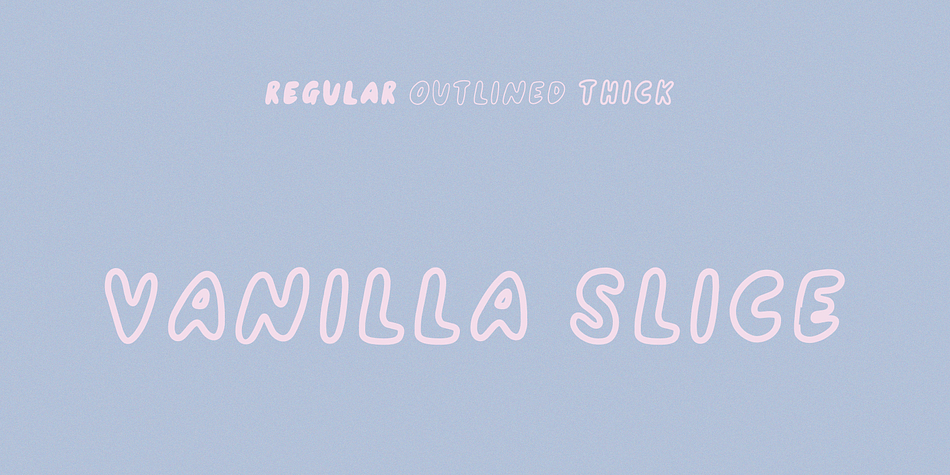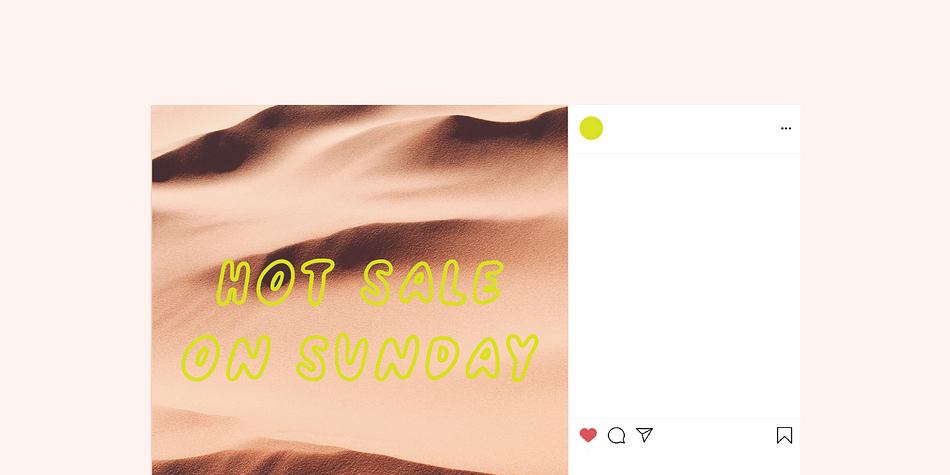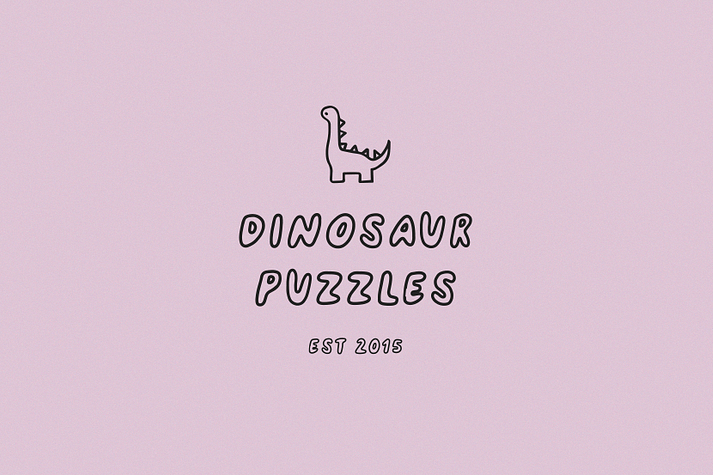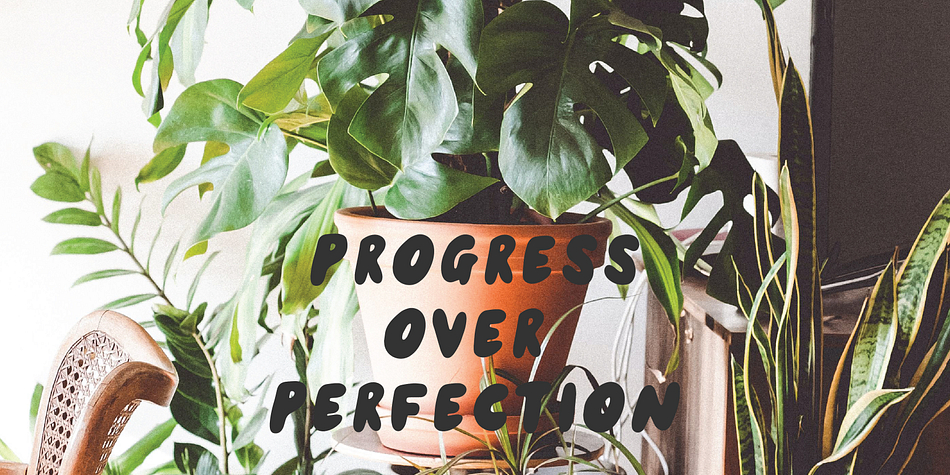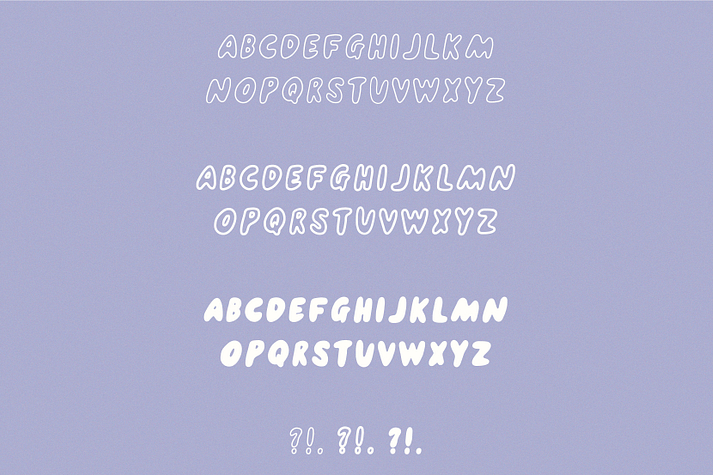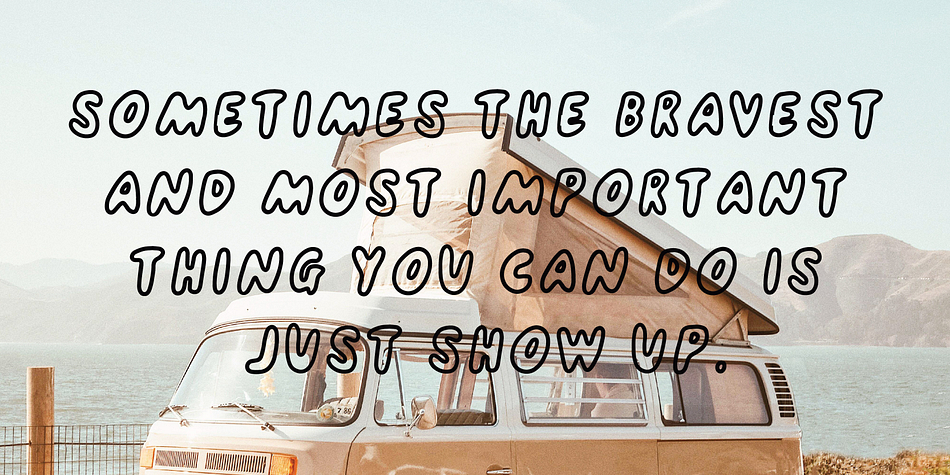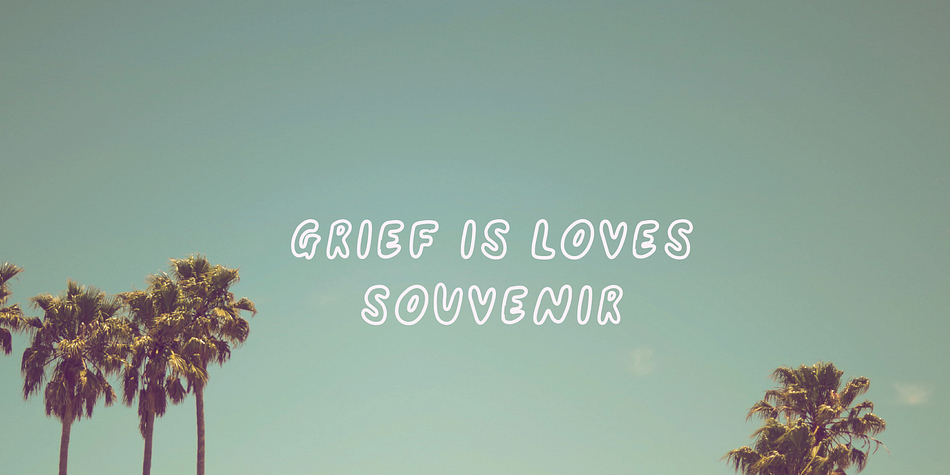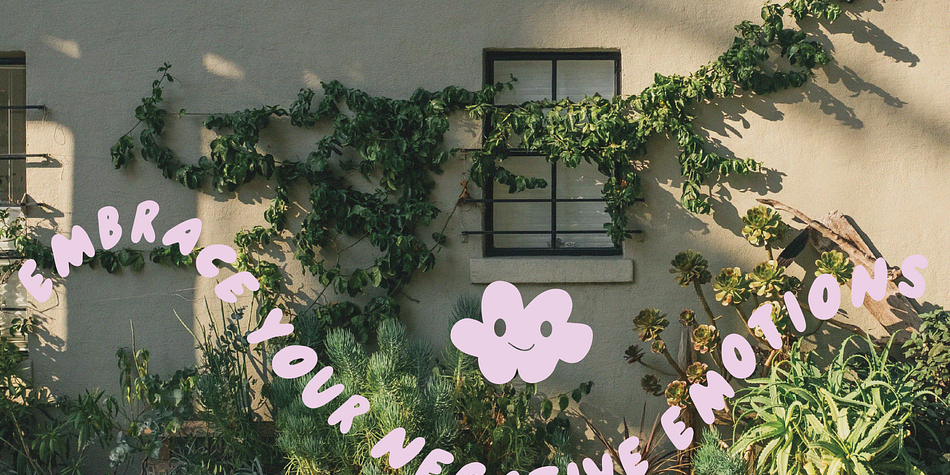
VANILLA SLICE
Vanilla Slice is a display sans font family. This typeface has three styles and was published by Loryn Ipsum.
VANILLA SLICE | handwritten san serif font
Perfect for; handmade products, fun brands, ceramics, retro branding, playful logos, instagram quote text.
Foundry Loryn Ipsum